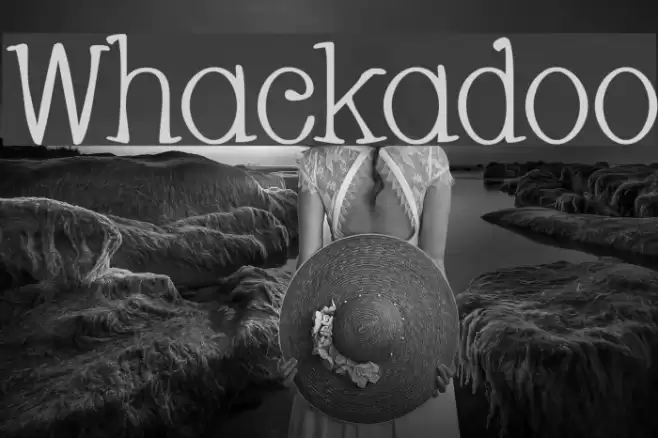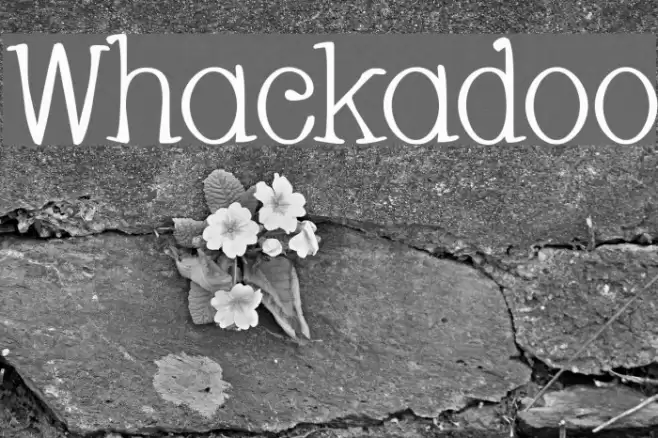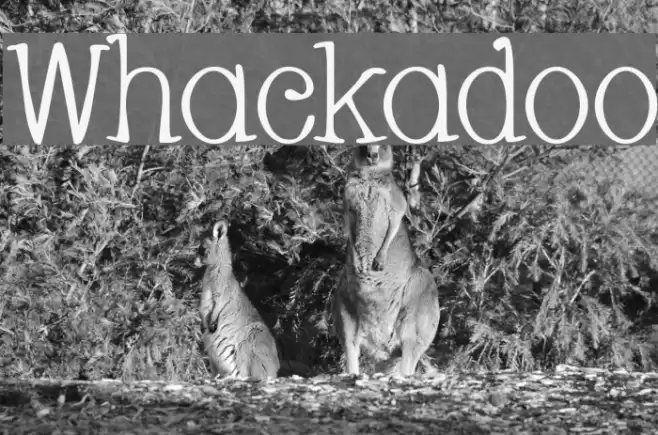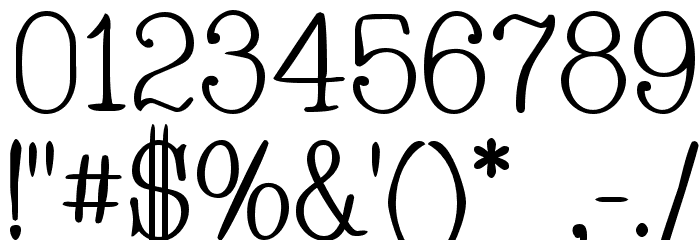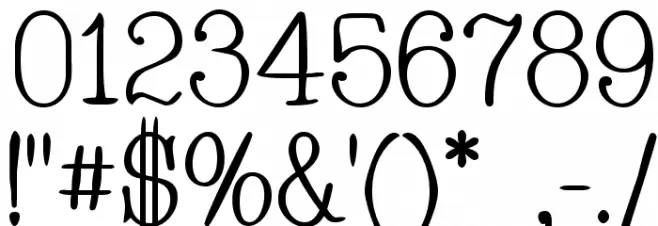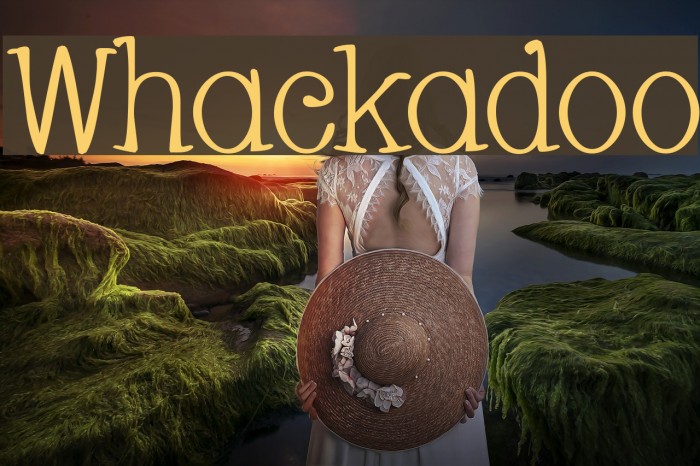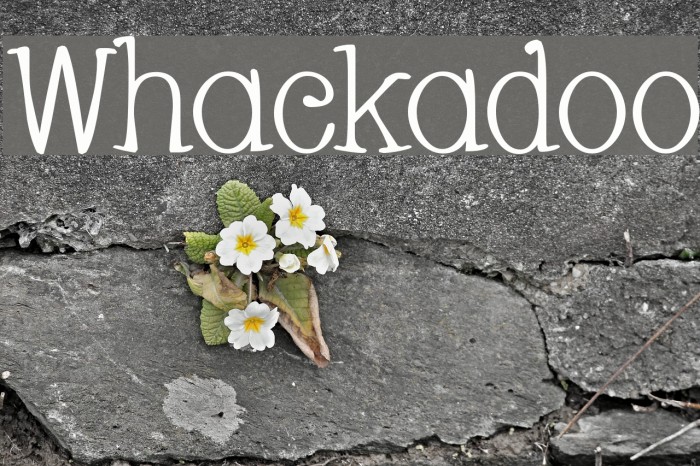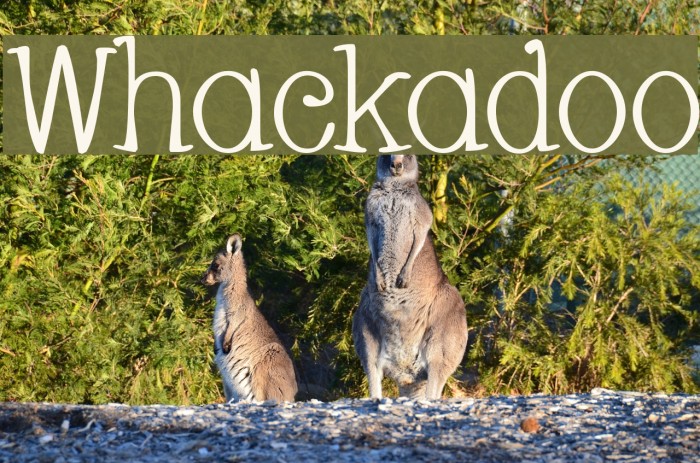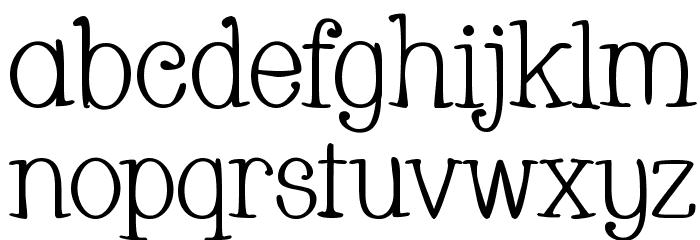
Whackadoo Font
Whackadoo Description
This font features a playful and whimsical style, characterized by its curly and slightly irregular letterforms. The uppercase letters exhibit a unique blend of traditional serif elements with a quirky twist, while the lowercase letters maintain a consistent, flowing appearance. The numerals are bold and distinct, ensuring readability. Special characters are creatively designed, adding to the font's overall charm. The font's personality is both approachable and fun, making it suitable for a variety of creative projects.
A playful and whimsical font with curly, irregular letterforms from Typewriter fonts.
- Proposed Projects: Ideal for children's books, playful branding, greeting cards, and creative posters.
- Overall Style: Whimsical
- Use Case: Headlines, Logos, Creative projects